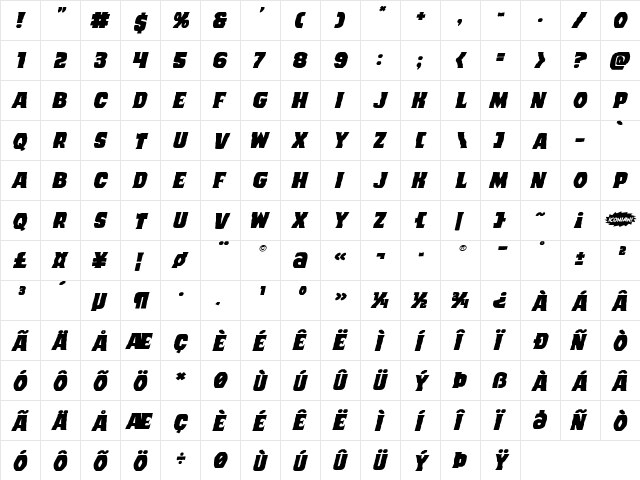
Dusk Demon Expanded Italic Regular
Design Context for Dusk Demon Expanded Italic Typeface
Dusk Demon Expanded Italic takes a measured approach to typography — its balanced proportions and neutral character make it a reliable workhorse for both digital and print work. The dynamic lean of this cut emphasises speed and emphasis in any layout.
Pro Tip: Use Dusk Demon Expanded Italic for emphasis, pull quotes, and subheadings where its slanted energy can add rhythm to the layout.